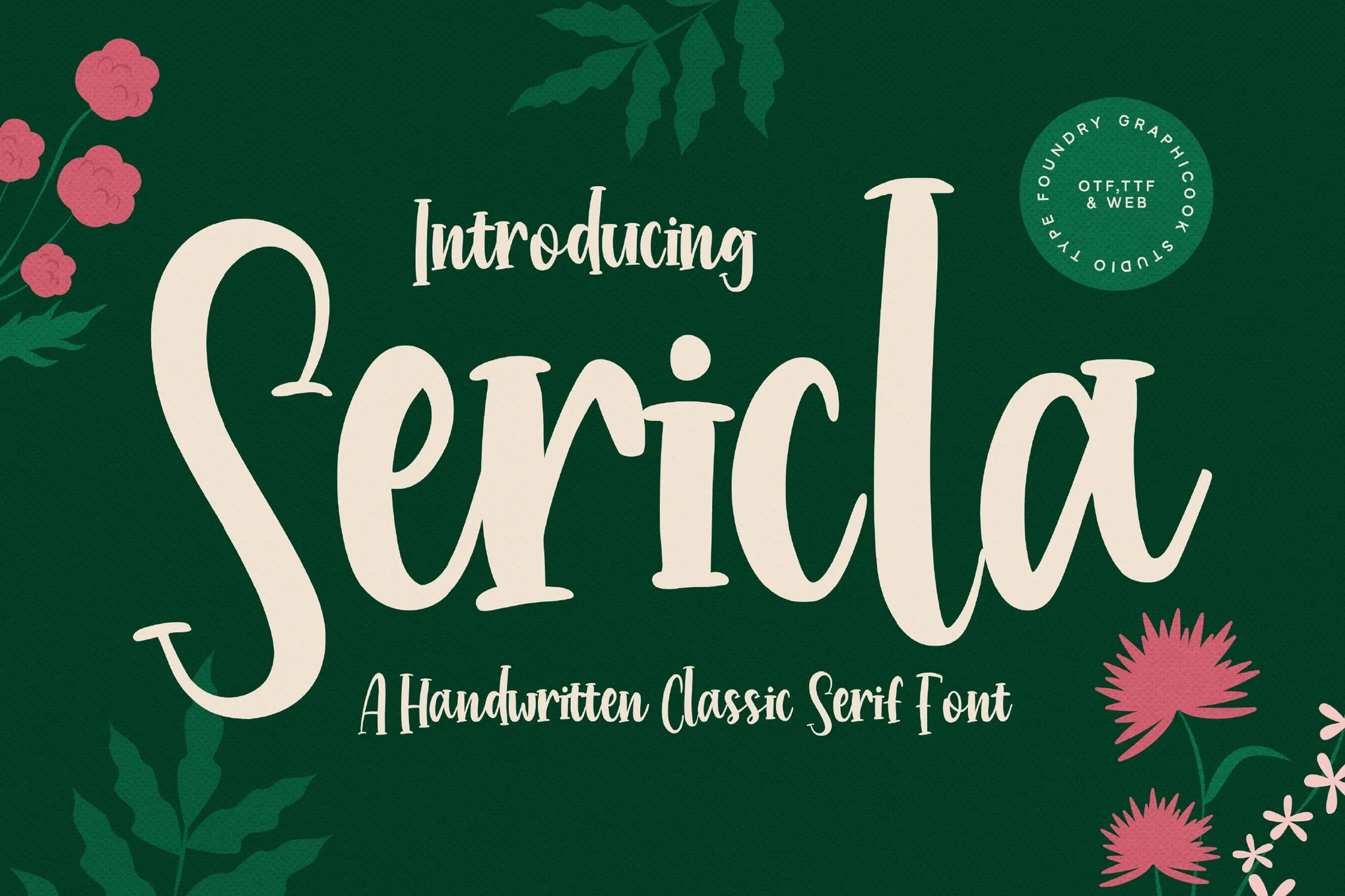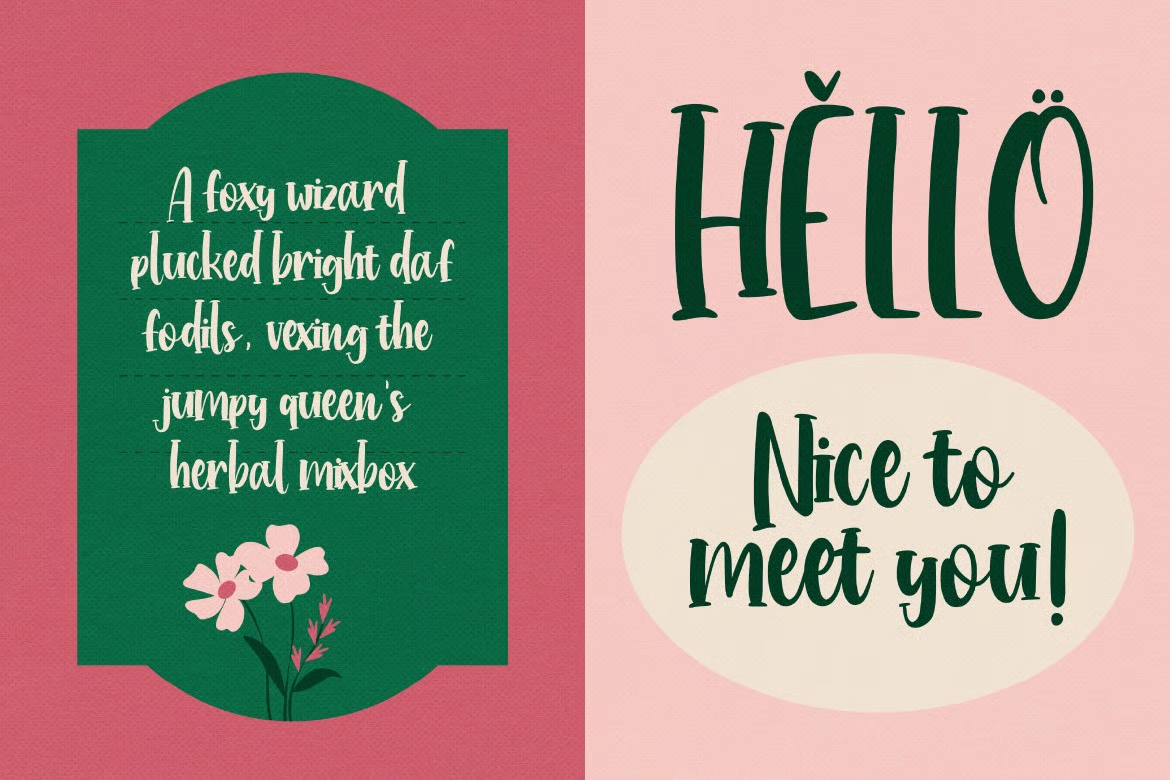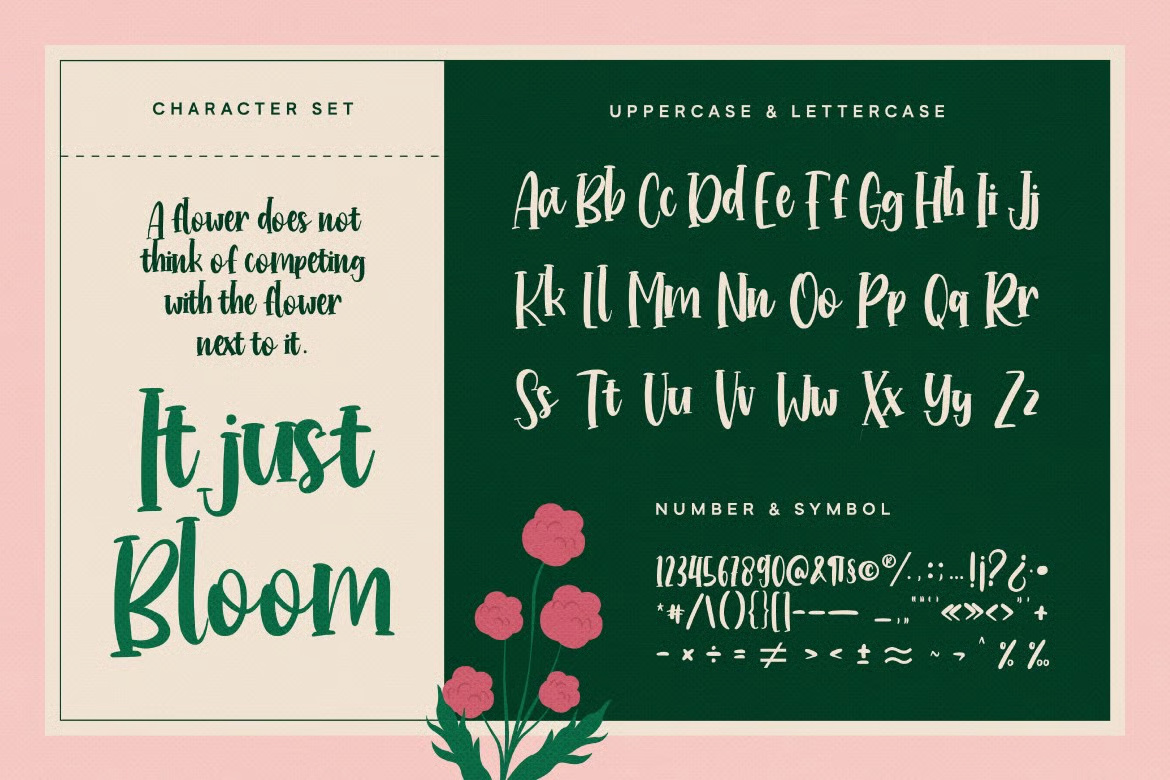
Sericla is a charming hand-drawn serif font that blends classic structure with expressive brushwork, resulting in a lively and approachable look. Its playful curves and relaxed flow exude warmth, while the subtle imperfections in each letterform bring a genuine, handcrafted feel. Sericla strikes the perfect balance between elegance and informality, making it ideal for inspirational quotes, artistic packaging, branding with personality, and any creative design that calls for a human touch.
Whether you’re crafting a whimsical logo or a heartfelt message, Sericla adds soul and character to your typography.
Sericla Script Font